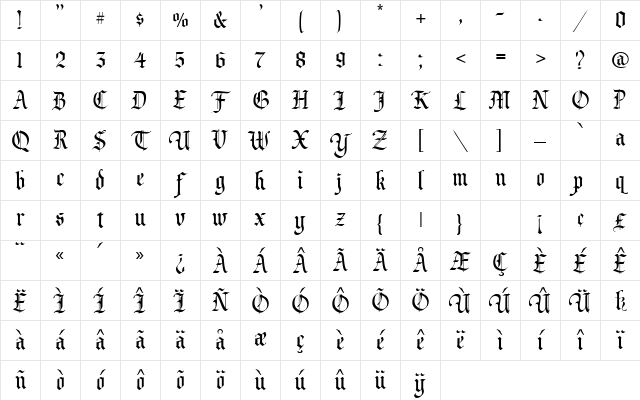
CAC Valiant Regular
Design Context for CAC Valiant
CAC Valiant is a composed and adaptable typeface that performs quietly and consistently across a wide range of design contexts.